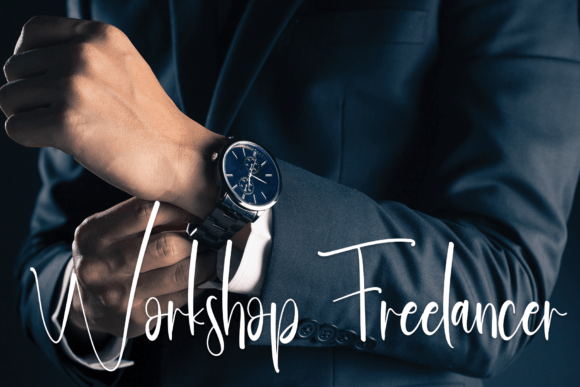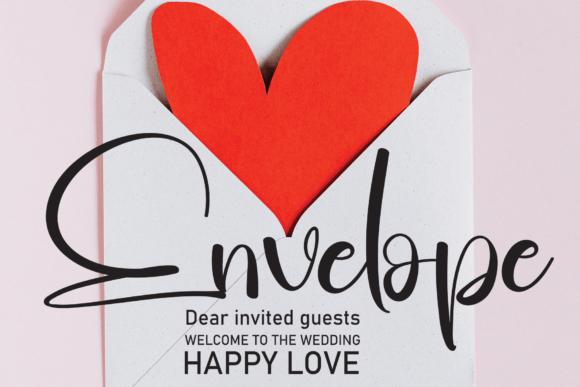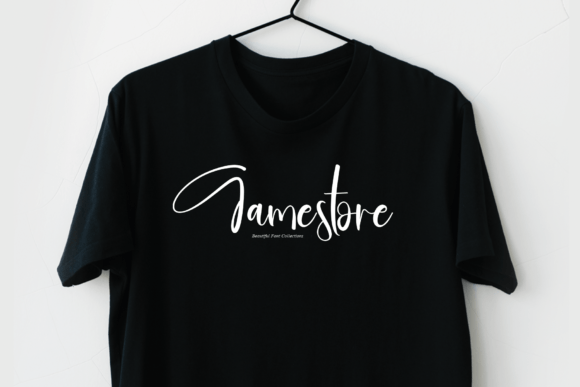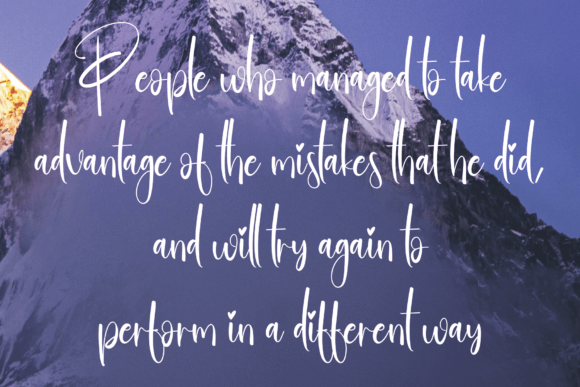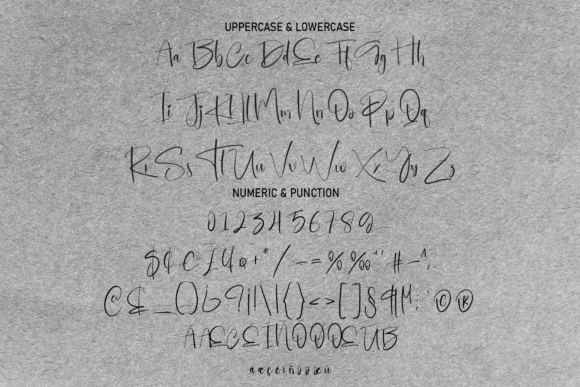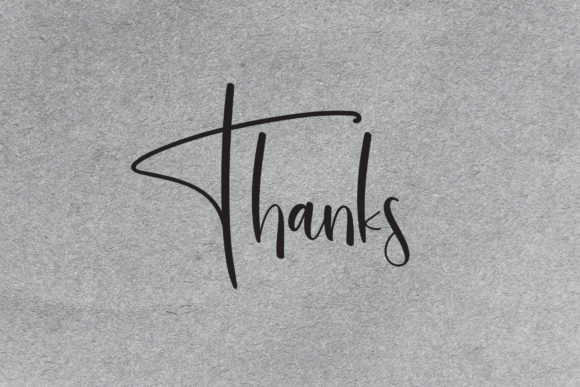
Introducing Everyday Font: Elevate Your Designs with Elegance
Are you on the hunt for a font that adds a touch of sophistication and charm to your projects? Look no further than Everyday Font, a stunning handwritten font that is sure to capture your heart. With its elegant touch and timeless style, Everyday Font is the perfect addition to your design arsenal.
The Beauty of Everyday Font
Everyday Font is a beautifully crafted handwritten font that boasts an incredibly distinct style. Its elegant touch is perfect for designers and crafters who want to add a personal touch to their projects. Whether you’re working on a branding project, a wedding invitation, or a social media graphic, Everyday Font is sure to make your designs stand out.
What Makes Everyday Font So Special?
So, what sets Everyday Font apart from other fonts? Here are just a few reasons why designers and crafters are falling in love with this gorgeous font:
- Unique and Timeless Style: Everyday Font has a classic, timeless quality that never goes out of style. Its elegant touch and beautiful lettering make it perfect for creating stunning designs that will stand the test of time.
- Incredibly Versatile: Whether you’re working on a digital project or a print project, Everyday Font is incredibly versatile and can be used in a variety of contexts.
- Easy to Read: Despite its elegant and cursive nature, Everyday Font is surprisingly easy to read, making it perfect for body text and headlines.
- Perfect for Branding: With its unique and memorable style, Everyday Font is perfect for branding projects, including logos, business cards, and letterheads.
How to Use Everyday Font in Your Designs
Now that you’re falling in love with Everyday Font, let’s talk about how to use it in your designs. Here are a few ideas to get you started:
- Wedding Invitations: Add a touch of elegance to your wedding invitations with Everyday Font. Its beautiful lettering and classic style make it perfect for formal events.
- Branding Projects: Use Everyday Font to create stunning branding materials, including logos, business cards, and letterheads.
- Social Media Graphics: Add a personal touch to your social media graphics with Everyday Font. Its elegant style and versatility make it perfect for creating eye-catching graphics.
- Digital and Print Projects: Everyday Font is perfect for both digital and print projects, including brochures, flyers, and posters.
Tips and Tricks for Working with Everyday Font
Here are a few tips and tricks to help you get the most out of Everyday Font:
- Experiment with Font Sizes: Everyday Font looks great in a variety of font sizes, so don’t be afraid to experiment and find the perfect size for your project.
- Pair it with Other Fonts: Everyday Font pairs beautifully with other fonts, so try pairing it with a bold font for a striking contrast.
- Use it for Headlines and Body Text: Everyday Font is easy to read, making it perfect for both headlines and body text.
In conclusion, Everyday Font is a stunning handwritten font that is sure to elevate your designs. With its elegant touch, timeless style, and versatility, it’s perfect for designers and crafters who want to add a personal touch to their projects. Whether you’re working on a branding project, a wedding invitation, or a social media graphic, Everyday Font is sure to make your designs stand out. So why wait? Fall in love with Everyday Font today and start creating spectacular designs!